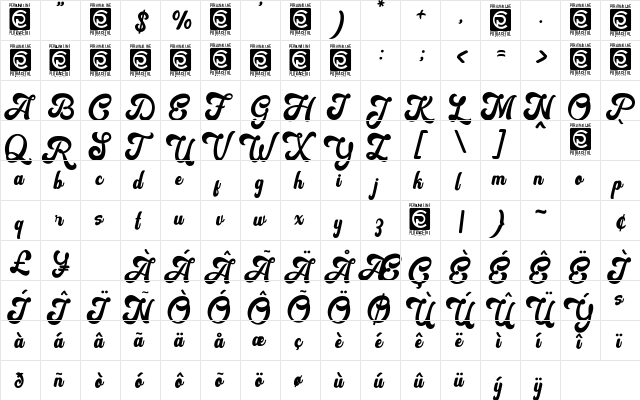
Vintage Party FreeVersion Regular
| Foundry | Putracetol Studio |
| Designer | Putra Novembria Candra Kusuma |
Design Context for Vintage Party FreeVersion Typeface
Vintage Party FreeVersion has the warm character of retro typography — evoking diners, record sleeves, and the golden age of print advertising.
Perfect for vintage-inspired branding, retro packaging, nostalgia campaigns, and period-accurate editorial design.
Font Pairing: Combine Vintage Party FreeVersion with a simple slab or neutral sans — period-accurate companions reinforce the vintage feel without competing for attention.
Pro Tip: Use Vintage Party FreeVersion for headlines and pull quotes rather than body copy — its personality is best appreciated in short, focused bursts.